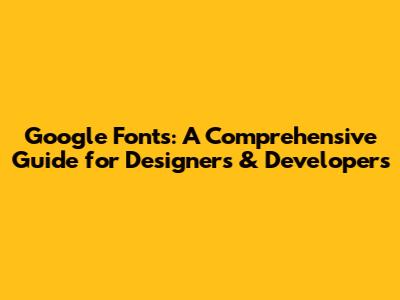
Google Fonts is a game-changer for web designers and developers, offering a vast library of free, open-source fonts that can be seamlessly integrated into websites and applications. In this comprehensive guide, we'll explore everything you need to know about Google Fonts, from its benefits and how to use it to advanced techniques and troubleshooting tips. Let's dive in, guys!
What are Google Fonts?
Google Fonts is a service provided by Google that hosts a vast collection of high-quality, open-source fonts. These fonts are free to use for personal and commercial projects, making them an invaluable resource for designers and developers of all levels. Before Google Fonts, web designers were often limited to a small selection of system fonts, which could result in websites looking generic and uninspired. Google Fonts revolutionized web typography by providing a wide array of unique and expressive fonts that could be easily implemented without the need for licensing fees or complex hosting arrangements. This democratization of typography has empowered designers to create more visually appealing and engaging websites, enhancing the overall user experience. The impact of Google Fonts on the web design landscape cannot be overstated, and its continued evolution ensures that designers will always have access to the latest and greatest in font technology.
Moreover, the ease of use and integration of Google Fonts have made it a popular choice for both seasoned professionals and beginners. With just a few lines of code, you can transform the look and feel of your website with stunning typography. The service also offers a variety of customization options, allowing you to fine-tune the font's weight, style, and character set to perfectly match your design vision. Whether you're building a simple blog or a complex e-commerce platform, Google Fonts provides the tools and resources you need to create visually compelling and user-friendly experiences. So, if you're looking to elevate your web design game, Google Fonts is definitely worth exploring. It's a fantastic resource that can help you create beautiful and engaging websites without breaking the bank. Plus, with regular updates and new fonts being added all the time, there's always something new to discover and experiment with.
Furthermore, the open-source nature of Google Fonts encourages collaboration and innovation within the design community. Designers and developers can contribute to the project by creating new fonts or improving existing ones, fostering a spirit of shared creativity and knowledge. This collaborative approach ensures that Google Fonts remains a vibrant and relevant resource for years to come. The platform also provides detailed documentation and tutorials, making it easy for anyone to learn how to use and contribute to the project. By embracing open-source principles, Google Fonts has created a thriving ecosystem of designers, developers, and typographers who are passionate about making high-quality fonts accessible to everyone. This collaborative spirit is what sets Google Fonts apart from other font services and makes it such a valuable asset for the web design community. So, whether you're a seasoned pro or just starting out, consider joining the Google Fonts community and contributing your skills and expertise to this amazing project.
Why Use Google Fonts?
Another key advantage of using Google Fonts is its ease of use. Integrating Google Fonts into your website is a simple process that requires just a few lines of code. You can either link to the fonts directly from Google's servers or download them and host them yourself. The platform also provides detailed instructions and tutorials, making it easy for even beginners to get started. This ease of use saves you time and effort, allowing you to focus on other aspects of your project. Furthermore, Google Fonts integrates seamlessly with popular web development tools and frameworks, such as WordPress, making it even easier to incorporate into your existing workflow. So, whether you're a seasoned developer or just starting out, Google Fonts is a user-friendly option that can help you create stunning typography with minimal effort.
Beyond the cost and ease of use, Google Fonts offers a vast library of fonts to choose from. With over a thousand different font families available, you're sure to find the perfect font for your project. Whether you're looking for a classic serif font, a modern sans-serif font, or a decorative display font, Google Fonts has something to suit every taste and style. The library is constantly growing, with new fonts being added regularly, so you'll always have access to the latest and greatest in typography. This wide selection allows you to experiment with different fonts and create unique and expressive designs that stand out from the crowd. So, if you're looking for a font service that offers both quality and variety, Google Fonts is definitely worth considering. It's a treasure trove of typographic inspiration that can help you elevate your web design game to the next level.
The panel at the bottom of the screen provides two code snippets: one for the <link> tag and one for the CSS rule. The <link> tag should be added to the <head> section of your HTML document. This tag tells the browser to download the font from Google's servers. The CSS rule should be added to your stylesheet, and it specifies which HTML elements should use the font. The CSS rule typically includes the font-family property, which specifies the name of the font, and the font-weight property, which specifies the weight of the font. You can also use other CSS properties to further customize the appearance of the font, such as font-style, font-size, and color. By adding these code snippets to your website, you can seamlessly integrate Google Fonts and start using your chosen font in your designs. This method is quick, easy, and ensures that your website always has access to the latest version of the font.
The other way to use Google Fonts is to download the font files and host them on your own server. This method gives you more control over the font files and can improve your website's performance by reducing the number of external requests. To download the font files, go to the font's details page on the Google Fonts website and click on the "Download family" button. This will download a ZIP file containing the font files in various formats, such as TTF, OTF, and WOFF. Once you've downloaded the ZIP file, extract the font files and upload them to your server. Then, you'll need to add a @font-face rule to your stylesheet to tell the browser where to find the font files. The @font-face rule specifies the name of the font, the URL of the font files, and the format of the font files. After you've added the @font-face rule to your stylesheet, you can use the font in your CSS rules just like any other font. This method requires a bit more technical knowledge, but it gives you more control over the font files and can improve your website's performance.